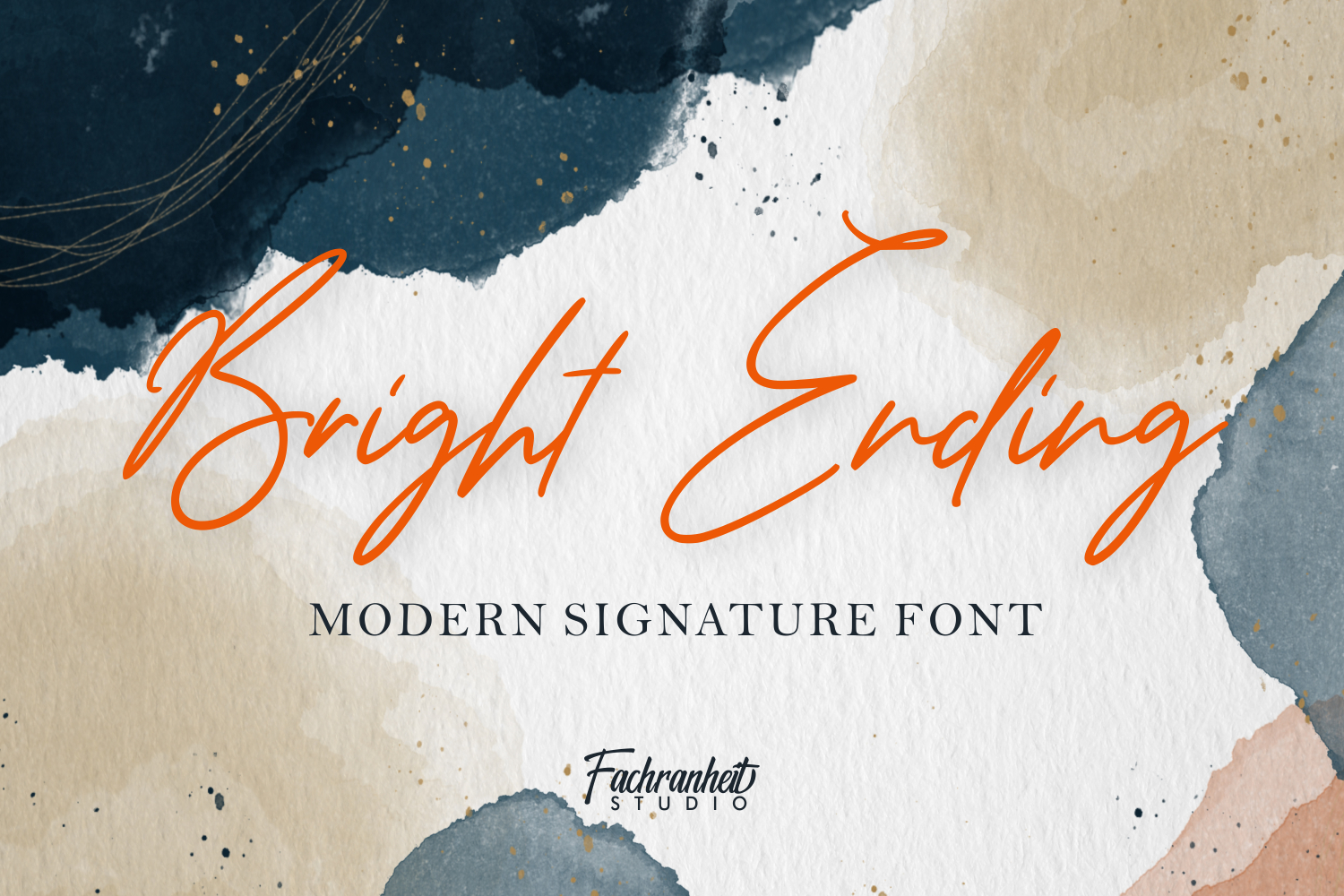
Bright Ending
Bright Ending is a Modern Signature font
The simple characteristics of Bright Ending make it very suitable for various purposes such as quotes, wedding card, flyers, logos, logotype, labels, branding etc.